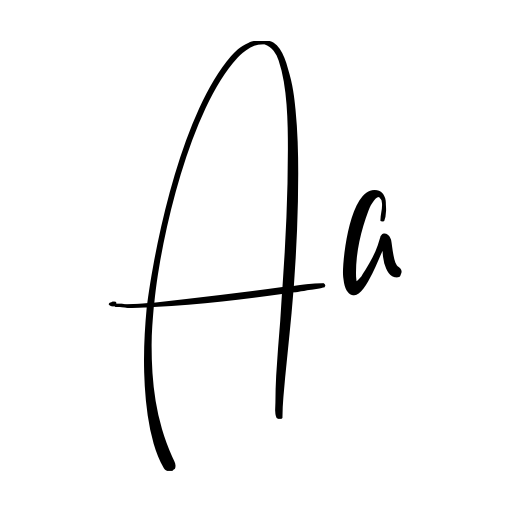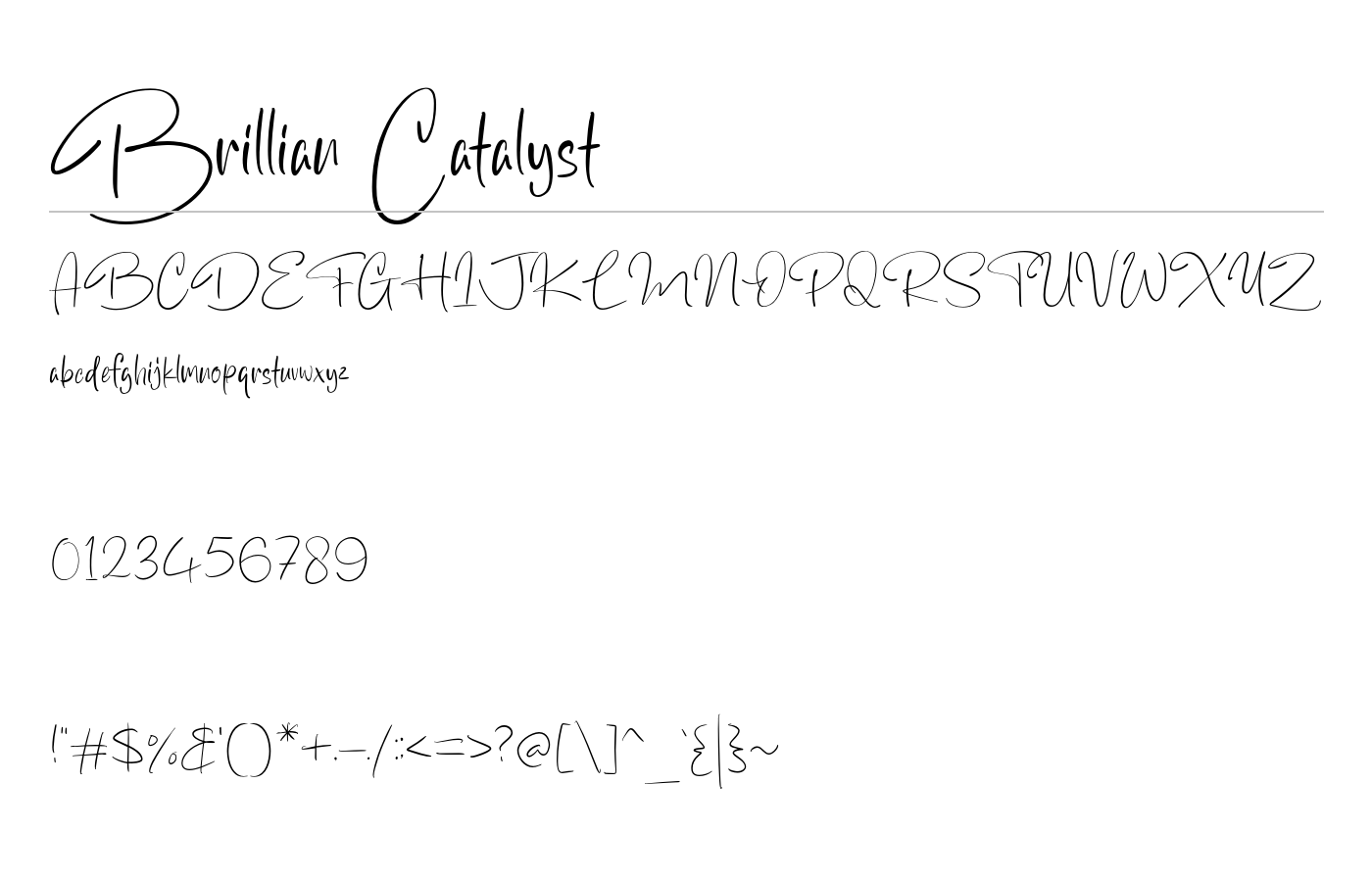
Brillian Catalyst is a delicate, handwritten script font with a light and airy feel, characterized by tall, narrow letterforms and fine, flowing strokes. Its elegant yet casual style makes it perfect for creative projects like invitations, branding, and artistic headlines where a personal, approachable touch is desired. This font works well in designs that seek to convey sophistication without being overly formal or rigid.
Brillian Catalyst Font
About Brillian Catalyst Font